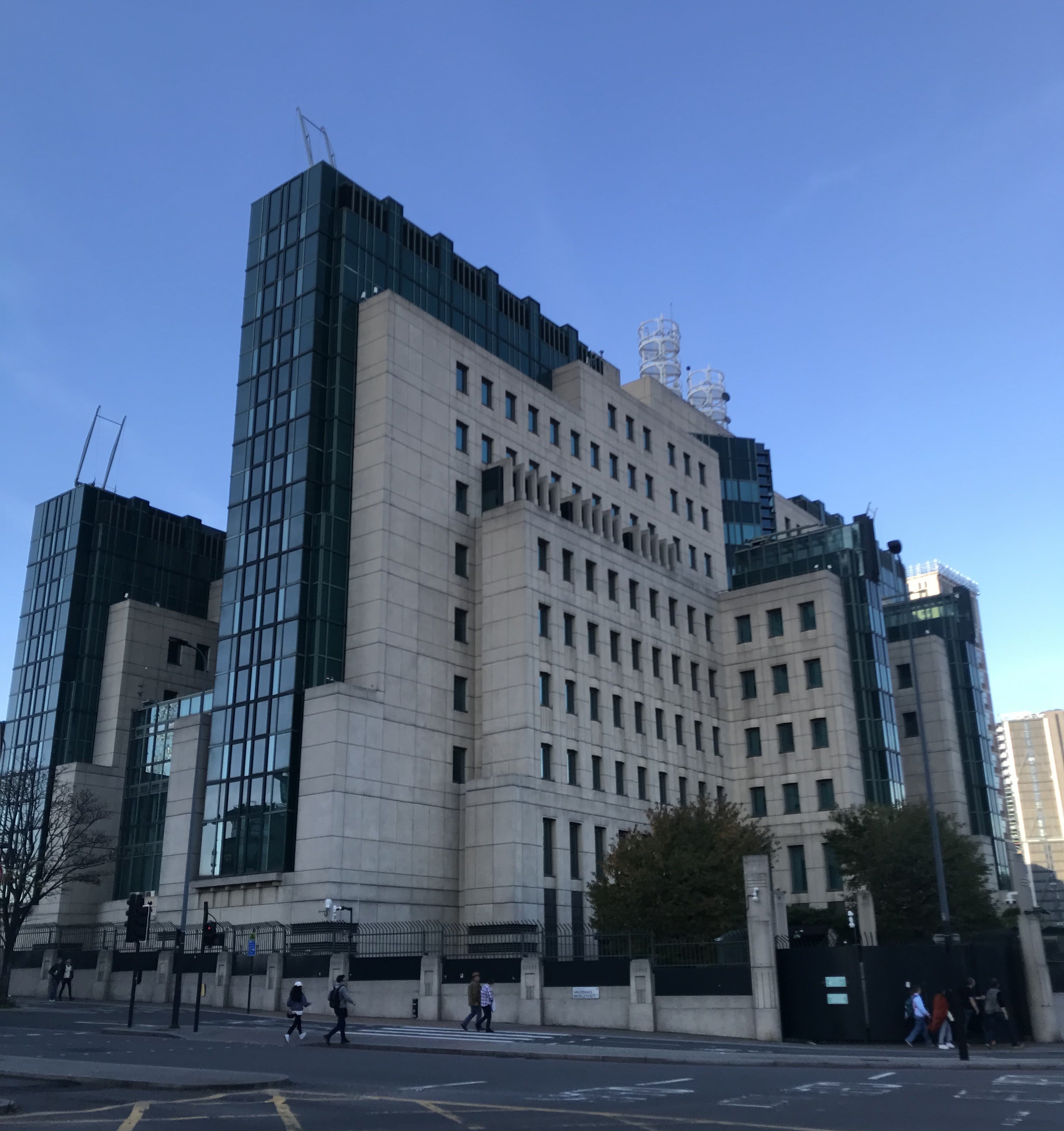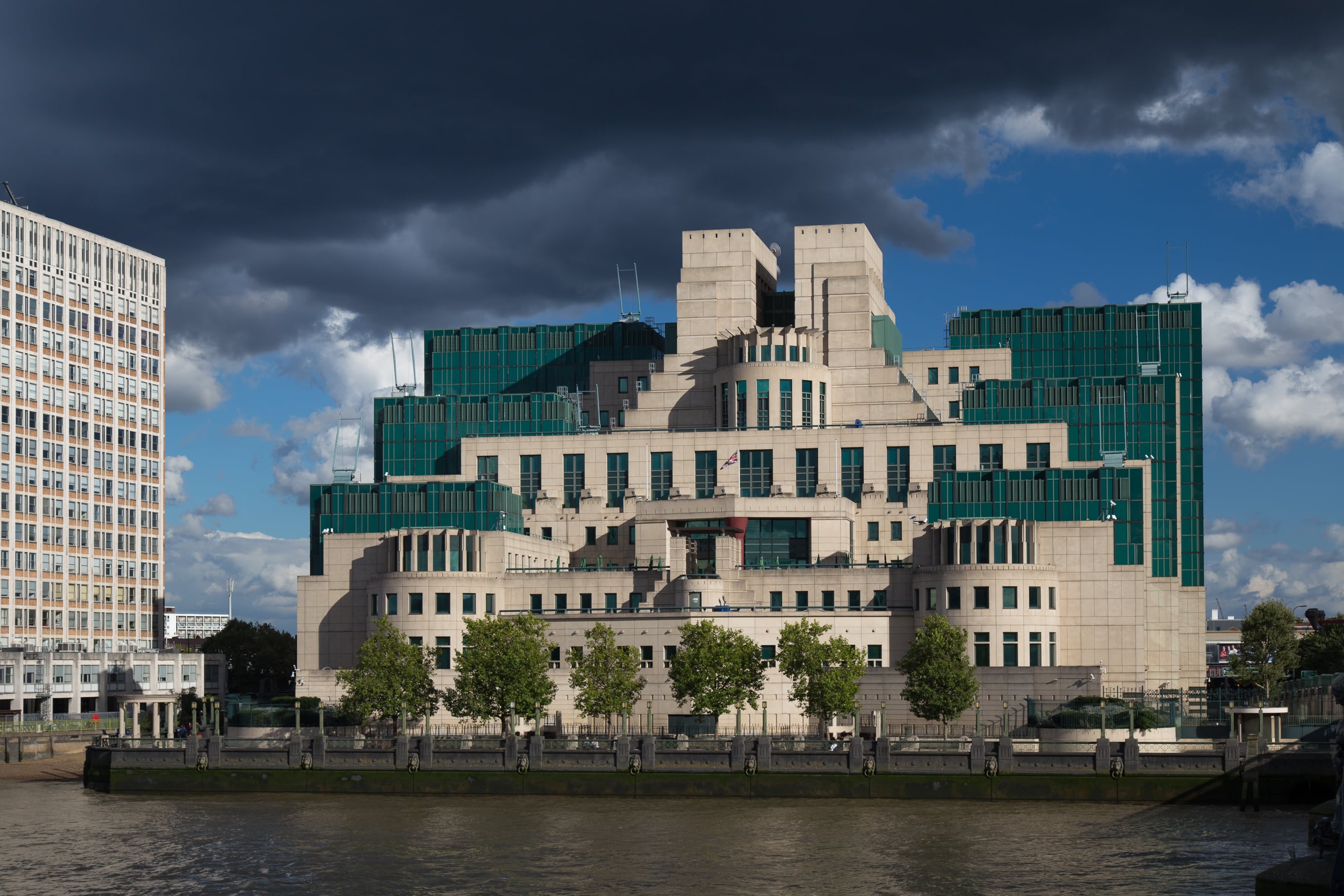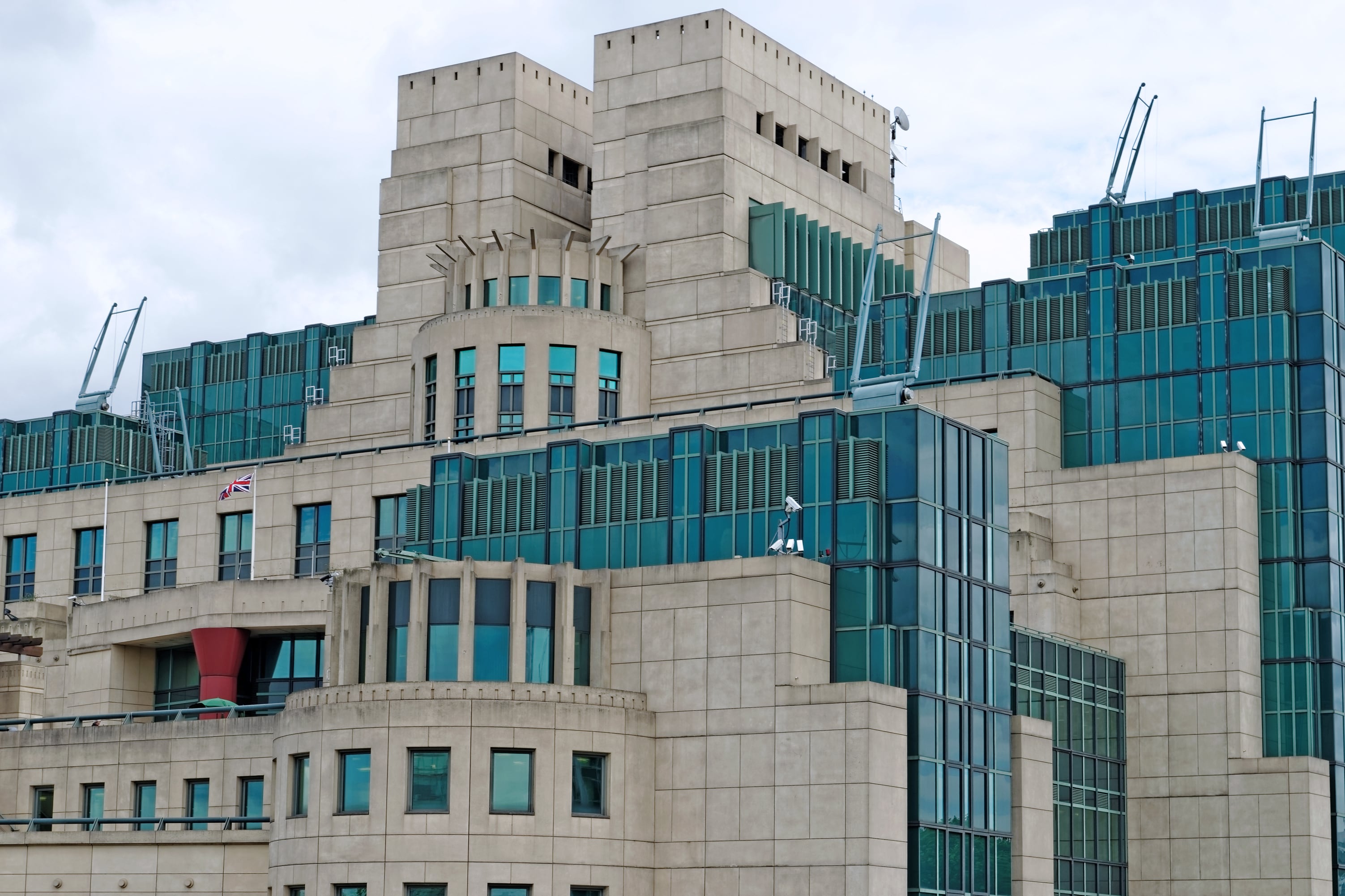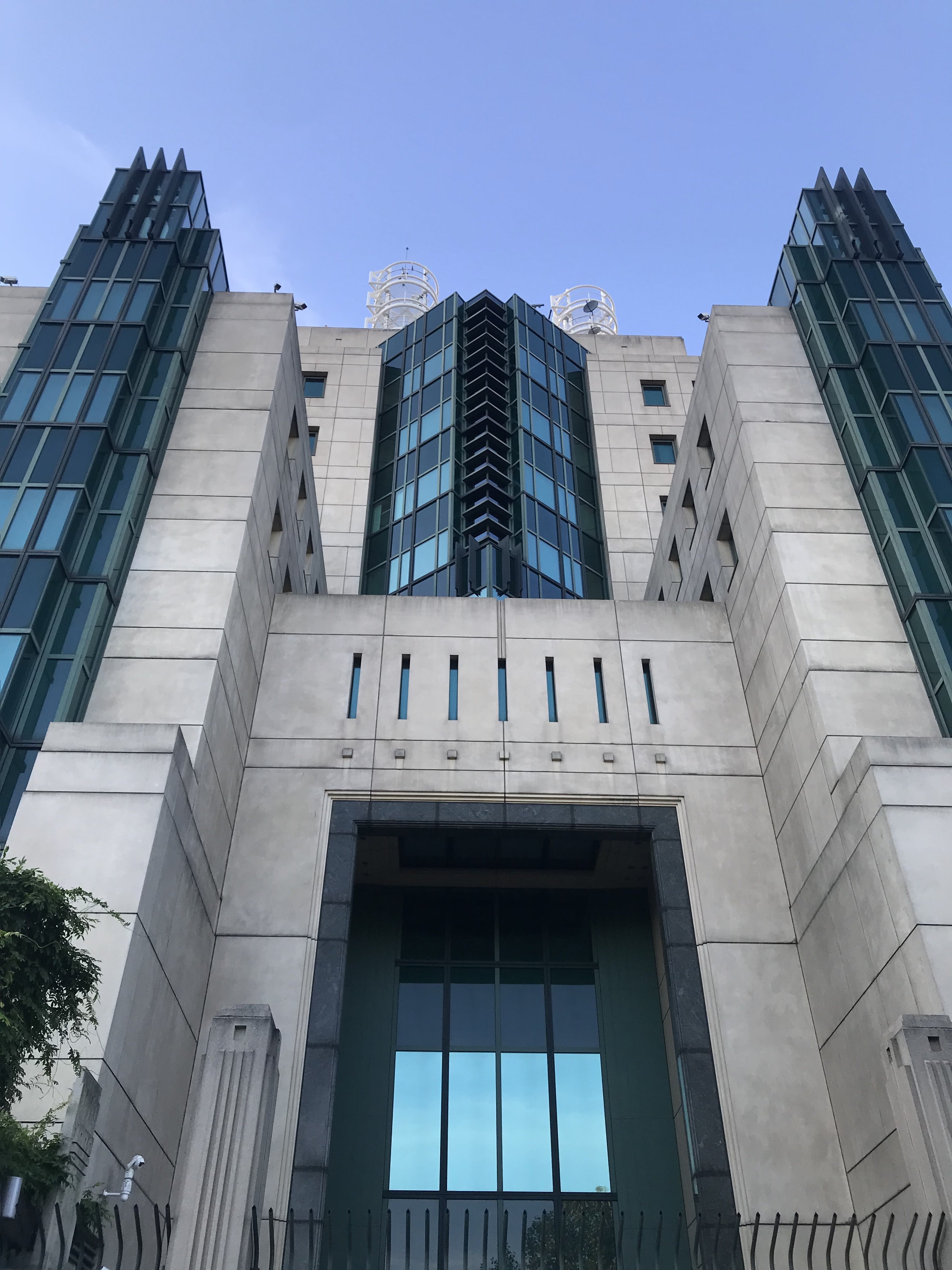
The typeface centres around the idea of hiding and camouflaging, demonstrating the life of how the spies of the MI6 live and how they cover themselves from and be one of us, at the same time, finishing their mission. With the least amount of strokes as the hint for the word, it portrays out the shape of the letter. The audience will have to use their own mind to fill out the missing strokes to realise the panorama for the word.